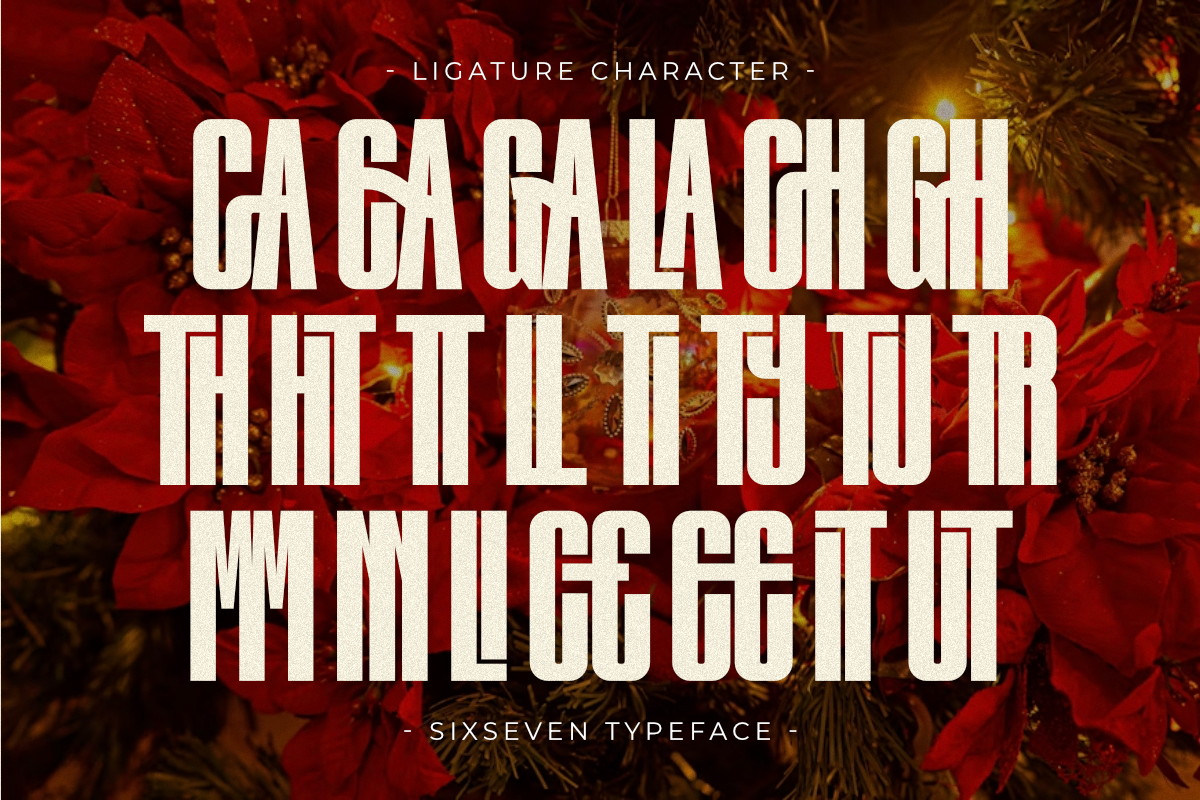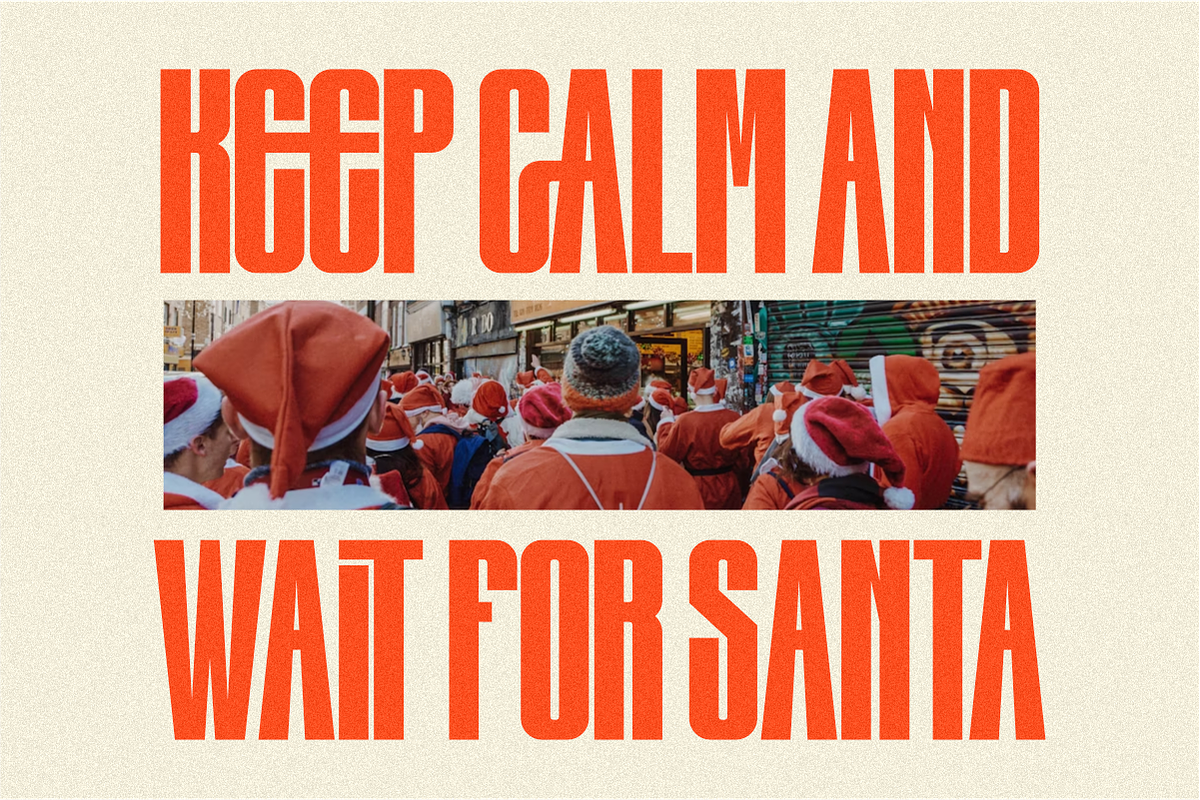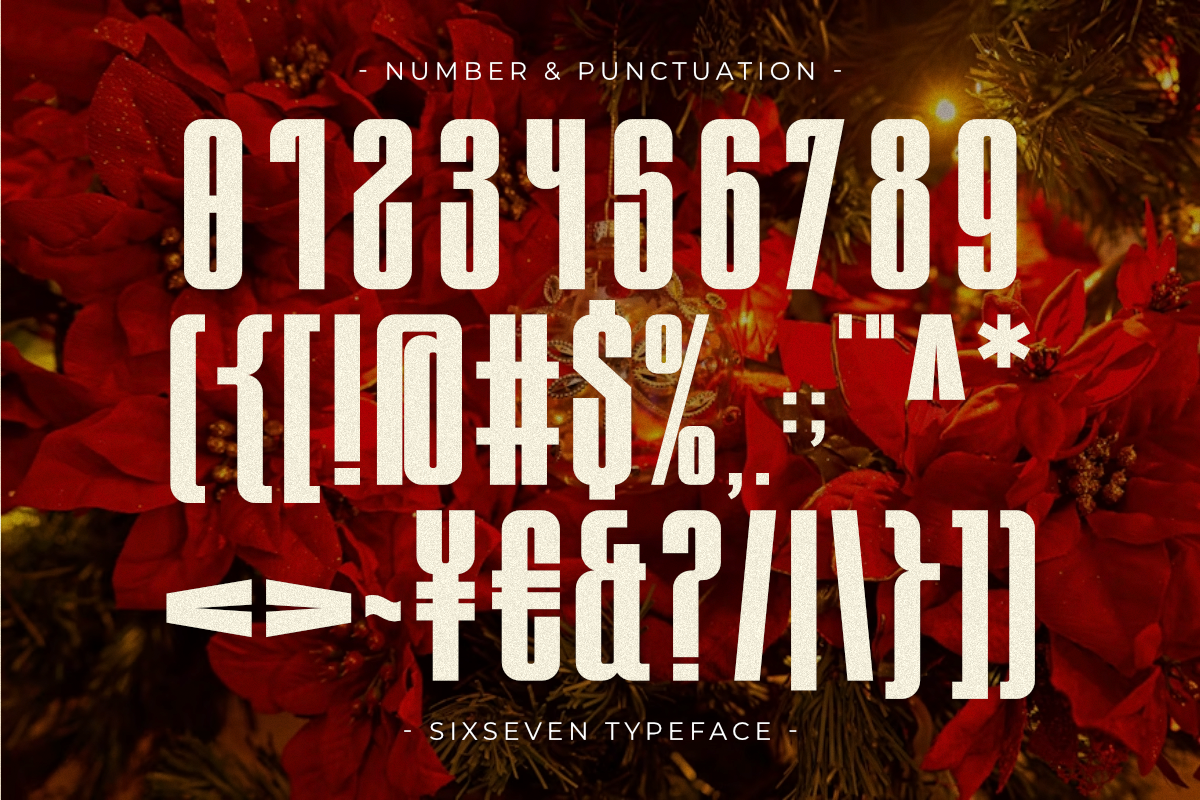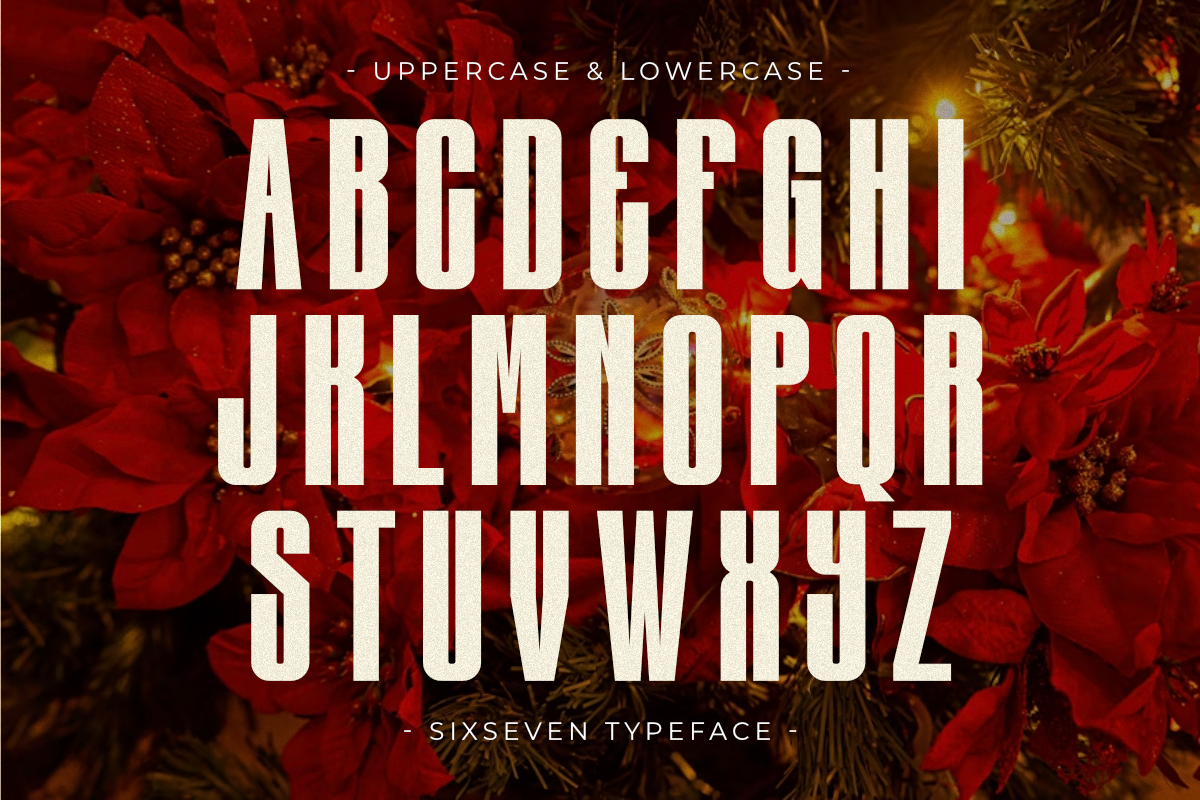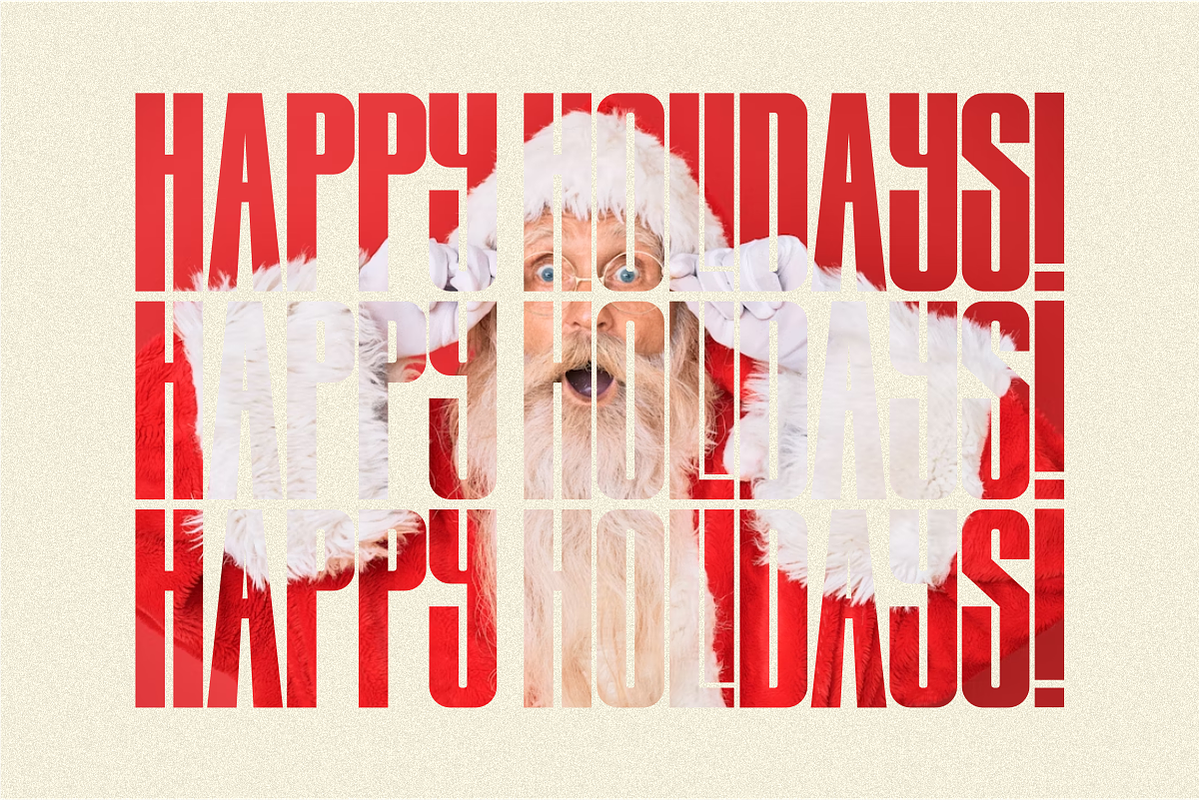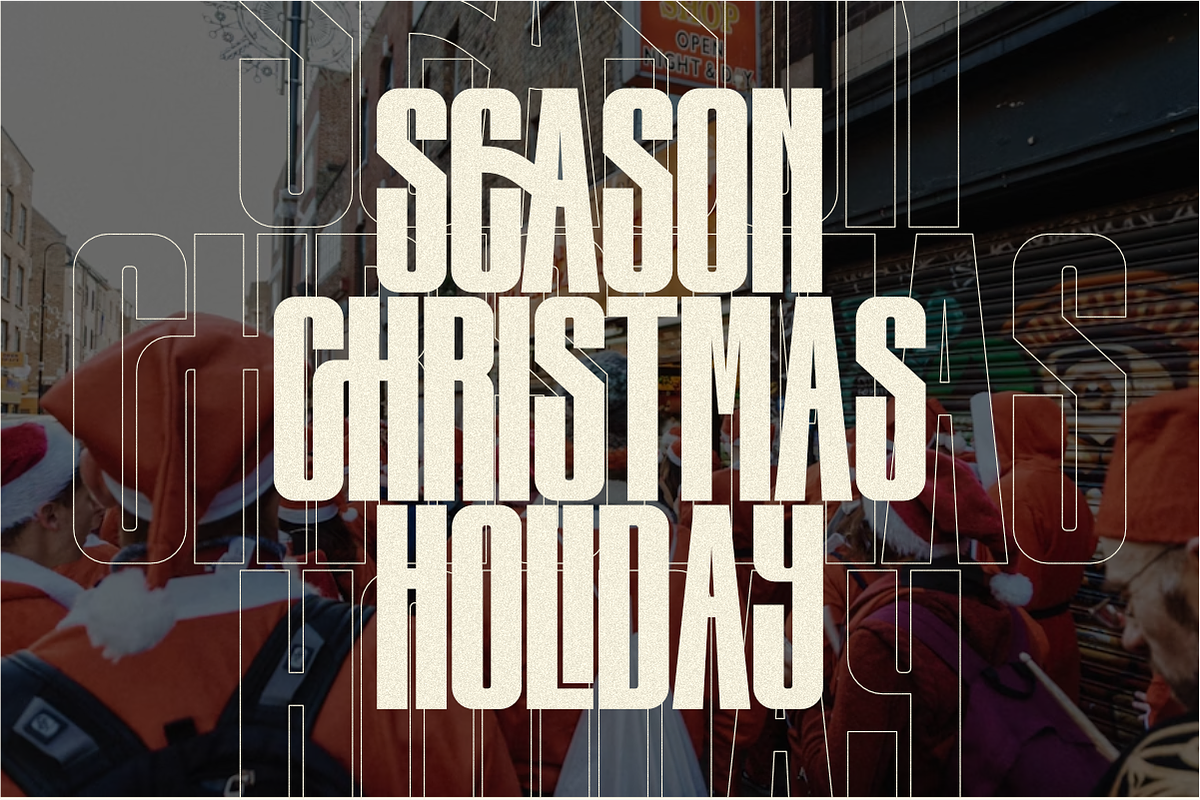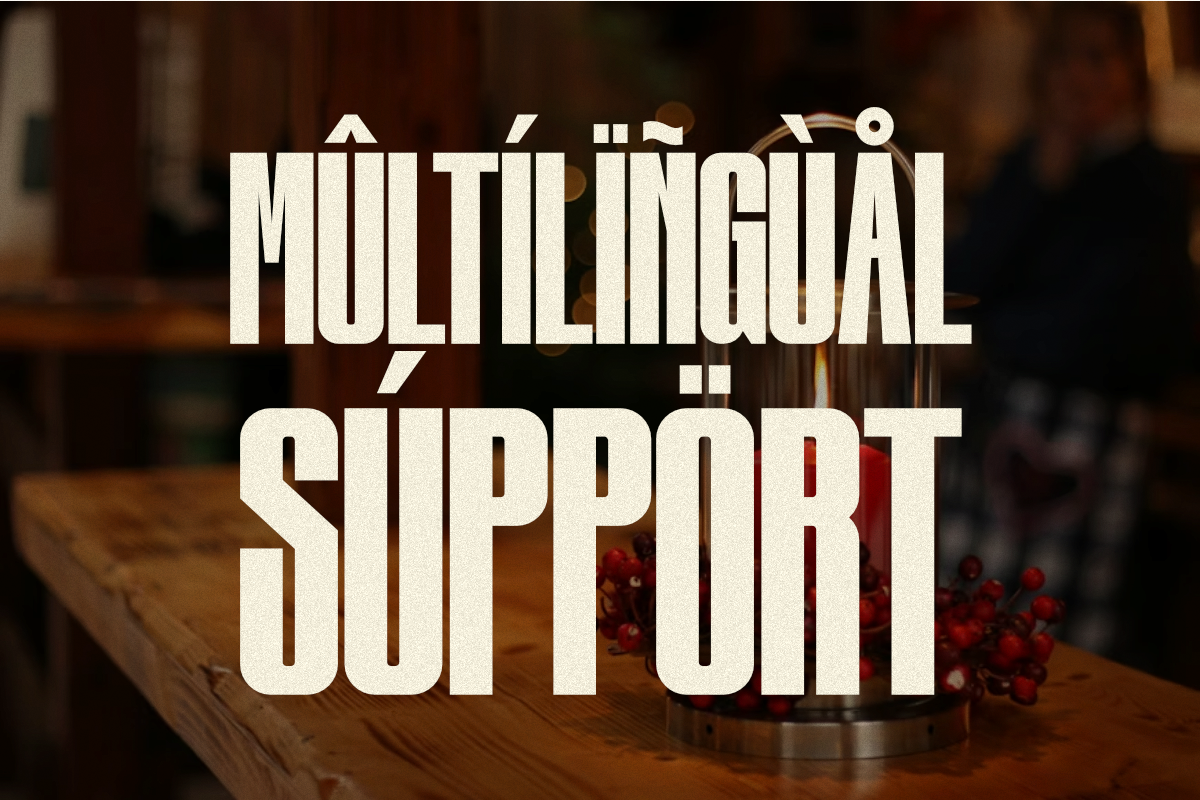
Sixseven - Ultra Condensed Sans
Sixseven is an exceptionally sleek and assertive Ultra Condensed Sans Serif font defined by its clean lines and monumental height. Designed for maximum vertical impact, it's the perfect modern typeface for high-fashion, luxury branding, and creating elegant holiday titles or architectural designs. This striking all-caps font includes sophisticated ligatures, ensuring a custom, elite aesthetic for magazine titles and impactful editorial layouts, making it versatile for both year-round and Christmas season projects. Sixseven delivers a strong, professional, and instantly recognizable visual identity.